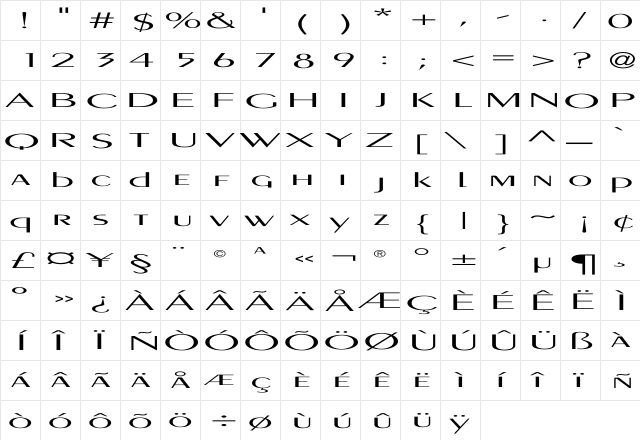
PigNoseTyp Ex Regular
Design Context for PigNoseTyp Ex Typeface
PigNoseTyp Ex is a composed and adaptable typeface that performs quietly and consistently across a wide range of design contexts.